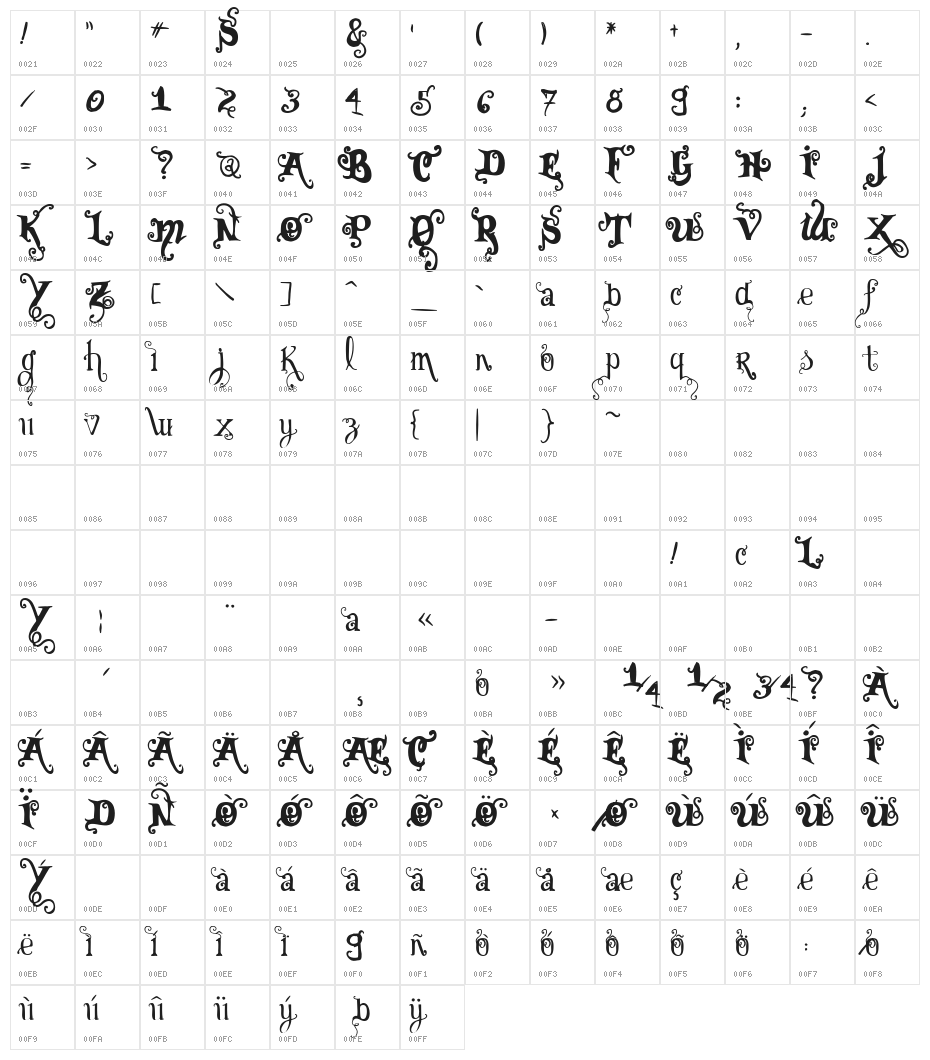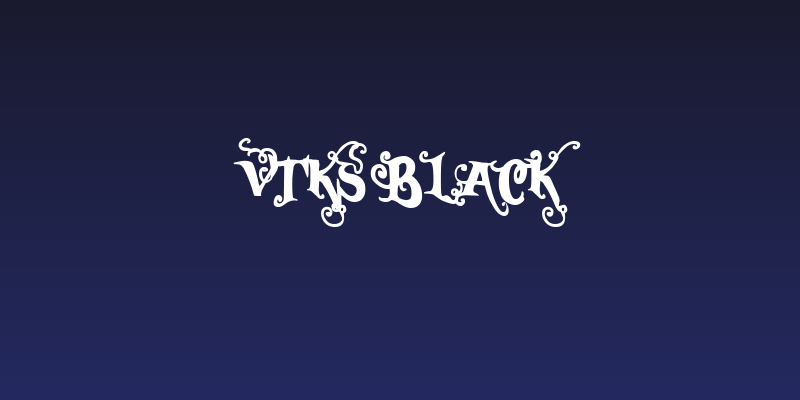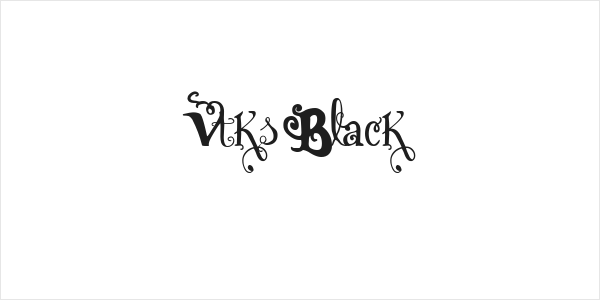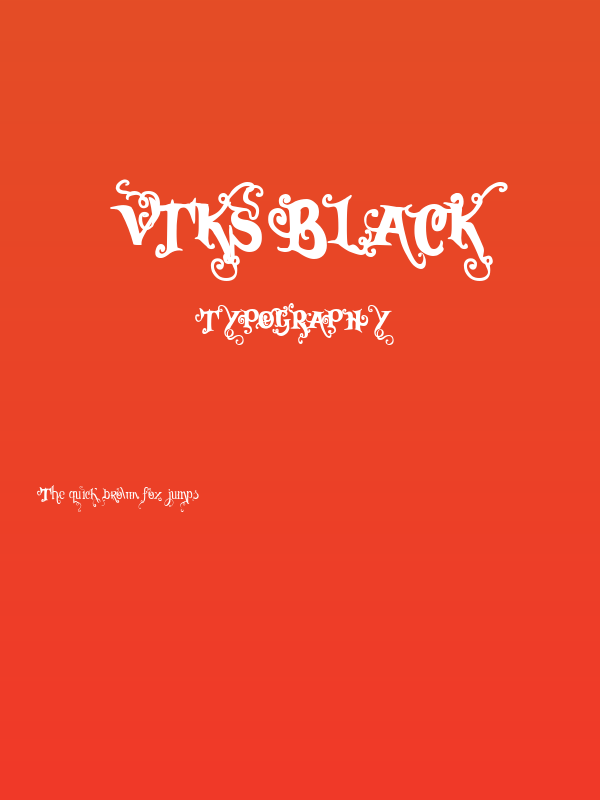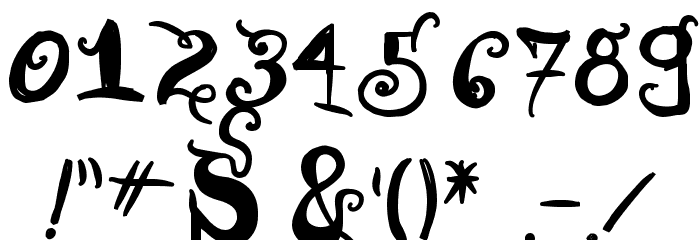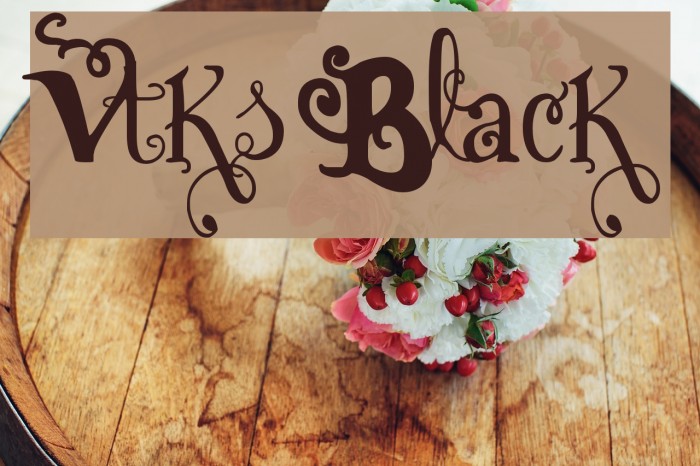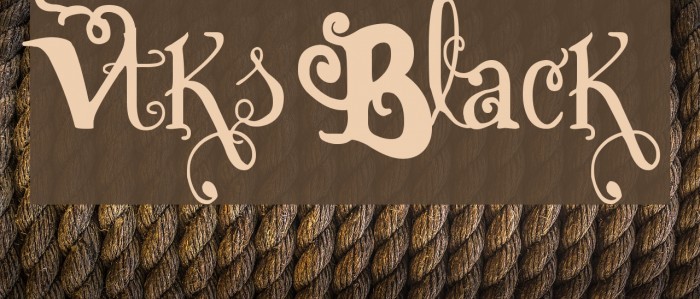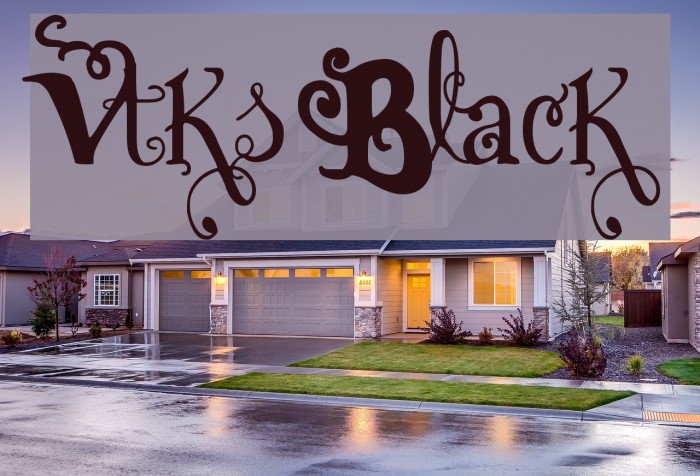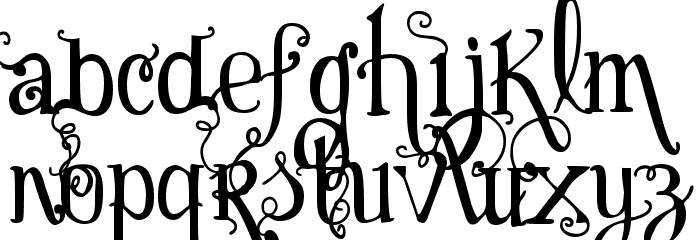
Vtks Black Font
Vtks Black Description
This font features an elaborate and decorative style, characterized by its intricate swirls and flourishes extending from the main strokes of each character. The uppercase letters are bold and ornate, with a gothic influence that gives them a dramatic appearance. The lowercase letters maintain the same decorative elements, creating a cohesive look throughout. Numbers and special characters are equally embellished, ensuring consistency across all glyphs. The font's artistic flair makes it suitable for designs that require a touch of elegance and complexity.
| Use Case | Logos, Headlines, Posters |
| Proposed Projects | Ideal for wedding invitations, gothic-themed posters, artistic book covers, and branding that requires a dramatic flair. |